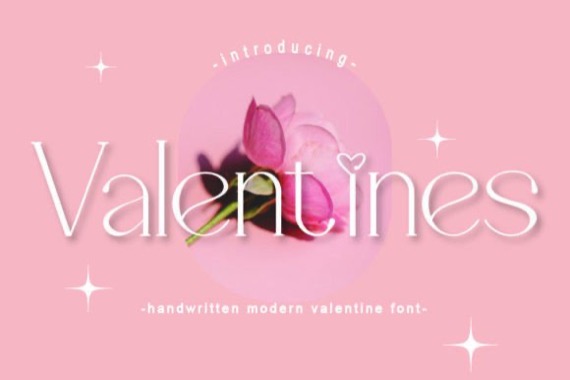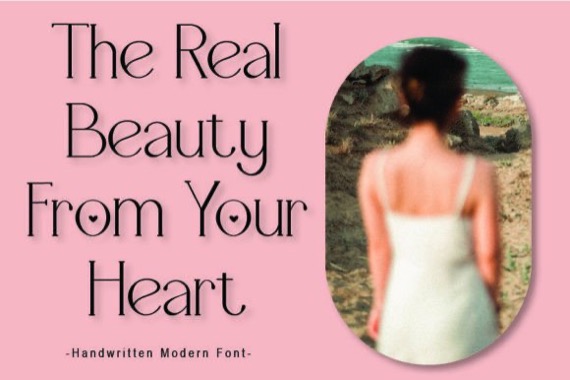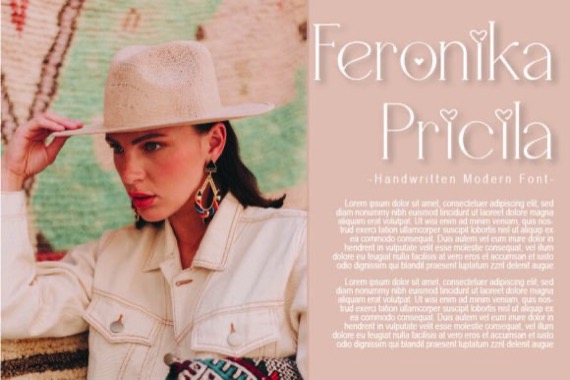
Valentines is a classy and delicate serif font that was designed and published by TS Store. Fall in love with its incredibly versatile style and use it to create gorgeous wedding invitations, beautiful stationary art, eye-catching social media posts, and much more!Use this font to accompany your valentine project.
Valentines Serif Font